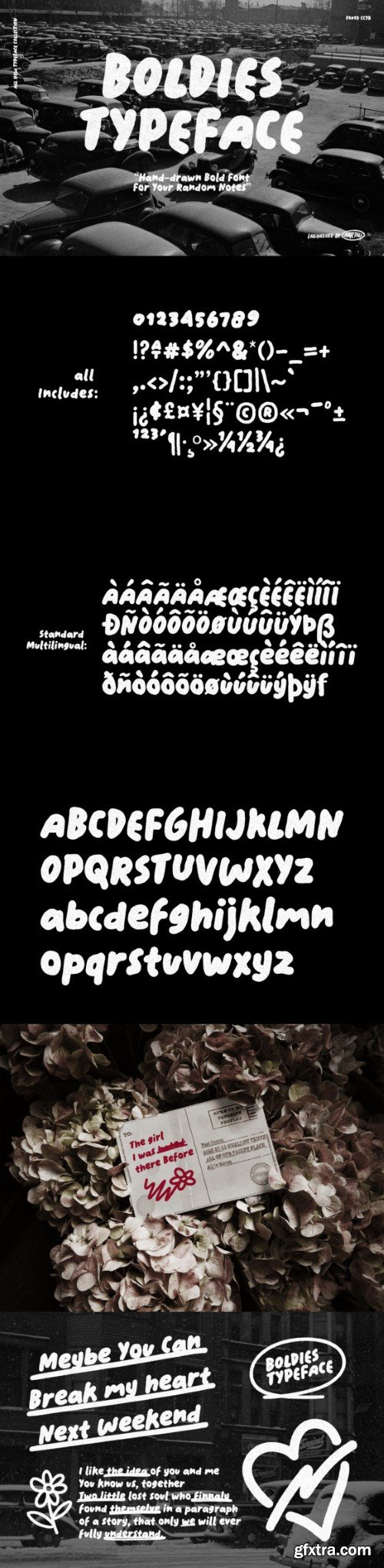
boldies font
Boldies Typeface is a lively and organic bold handwriting font that brings a cheerful and slightly retro vibe to your designs. With its bold strokes and playful charm, it injects a sense of happiness into your text. Perfect for projects that need a touch of nostalgia and a bold, friendly personality. Whether you’re creating invitations, posters, or anything that calls for a vibrant and upbeat style, Boldies Typeface adds a dash of joy to your creative endeavors.